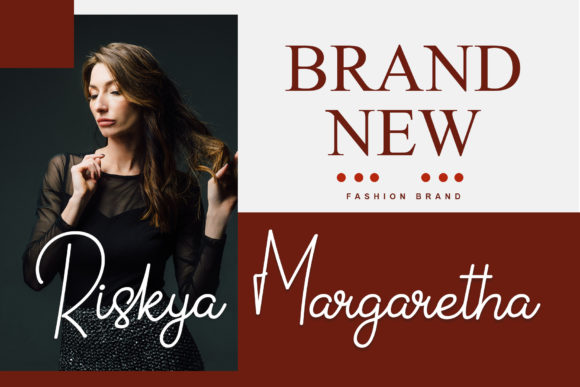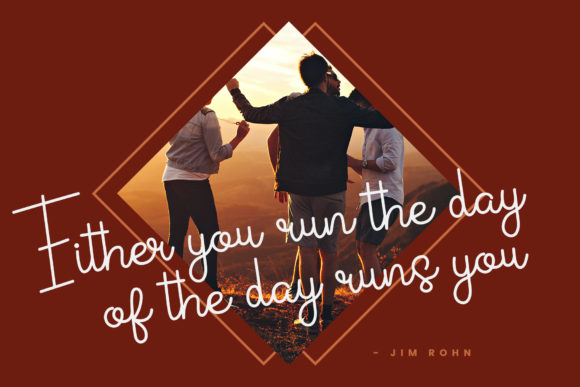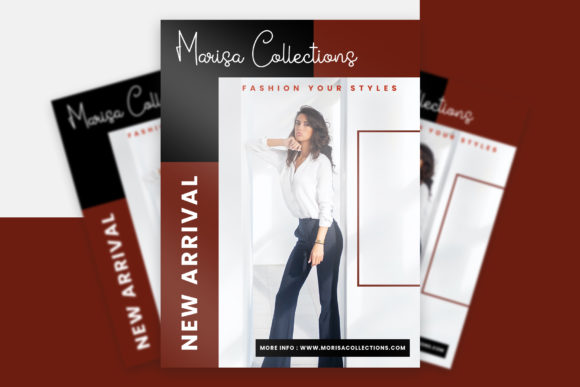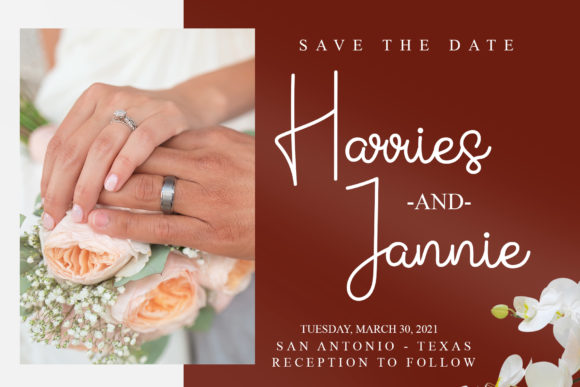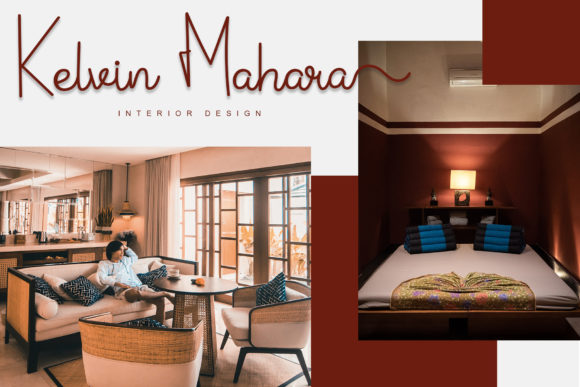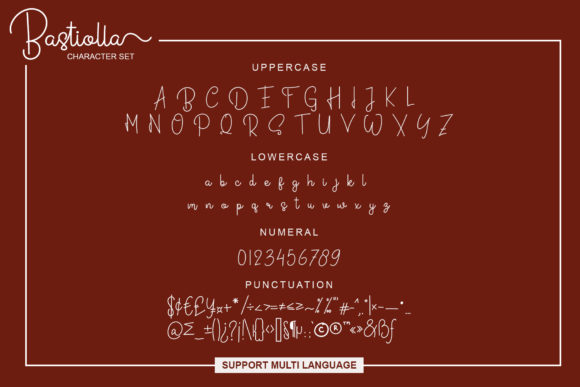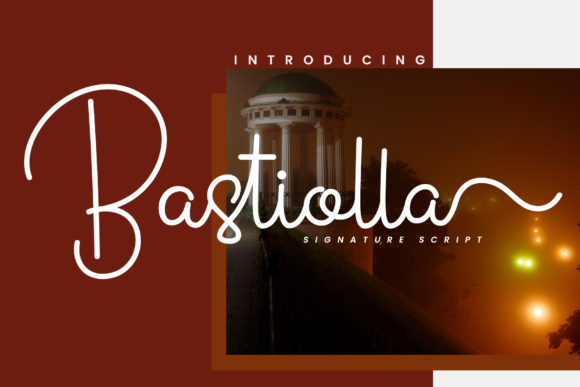
Bastiolla Font: The Sweet and Friendly Handwritten Font for Your Creative Projects
Are you looking for a font that can add a touch of warmth and personality to your designs? Look no further than Bastiolla, a sweet and friendly handwritten font that’s perfect for a wide range of creative projects. With its natural and unique style, Bastiolla is incredibly versatile and can be used for everything from branding and packaging to invitations and crafts.
The Characteristics of Bastiolla Font
Bastiolla is a beautifully designed handwritten font that’s characterized by its smooth, flowing lines and natural, effortless style. The font features a unique and distinctive look that’s both elegant and playful, making it perfect for designers and crafters who want to add a personal touch to their work.
One of the standout features of Bastiolla is its incredible versatility. The font is suitable for a wide range of design applications, from formal and professional projects to more casual and creative endeavors. Whether you’re designing a logo, creating a brochure, or crafting a handmade card, Bastiolla is the perfect choice.
The Benefits of Using Bastiolla Font
So why choose Bastiolla for your design projects? Here are just a few of the benefits of using this amazing font:
• Unique and distinctive style: Bastiolla has a one-of-a-kind look that’s sure to make your designs stand out from the crowd.
• Incredibly versatile: The font can be used for a wide range of design applications, from formal and professional projects to more casual and creative endeavors.
• Perfect for crafts and DIY projects: Bastiolla is a great choice for crafters and DIY enthusiasts who want to add a personal touch to their handmade creations.
How to Use Bastiolla Font in Your Designs
Using Bastiolla in your designs is easy. Here are a few tips to get you started:
• Pair it with other fonts: Bastiolla looks great when paired with other fonts, so don’t be afraid to experiment with different combinations.
• Use it for headings and titles: Bastiolla is perfect for headings and titles, where its unique and distinctive style can really shine.
• Experiment with colors: Bastiolla looks great in a wide range of colors, so don’t be afraid to try out different options.
The only limit to what you can create with Bastiolla is your imagination, so don’t be afraid to let your creativity shine. Whether you’re a professional designer or a crafty DIY enthusiast, Bastiolla is the perfect font for anyone who wants to add a touch of warmth and personality to their designs.